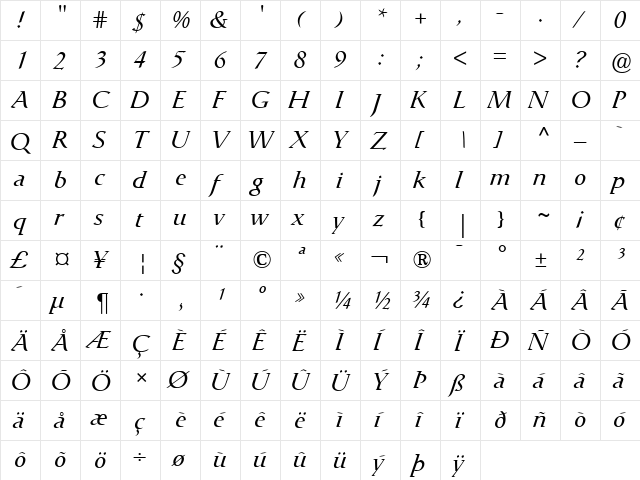
Catull Italic Font Preview
Catull Italic
Catull Italic Font Details
Design Context for Catull Typeface
Catull offers clean, dependable letterforms without strong stylistic allegiance, making it a practical choice for designers who need flexibility. The slanted form adds forward momentum and visual energy.
Pro Tip: Try Catull for annotation and caption copy alongside an upright companion — the contrast in angle creates a dynamic but ordered typographic system.